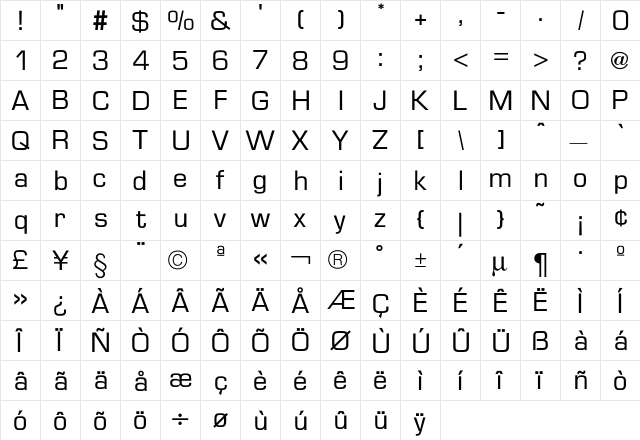
Euro Technic
Design Context for Euro Typeface
Euro channels digital-age aesthetics through its sharp, structured letterforms — ideal for brands that want to signal innovation.
Pro Tip: Use Euro in combination with a neutral sans for body text. Let it define the brand voice in headlines while keeping reading comfortable elsewhere.